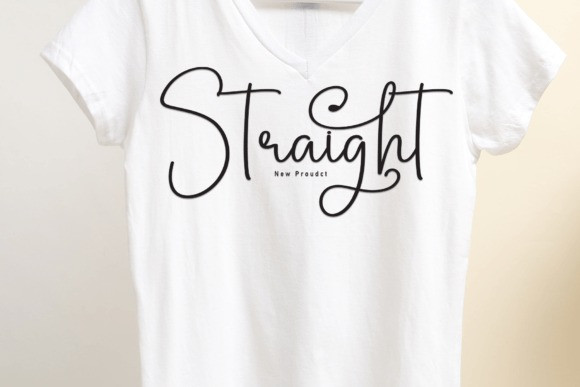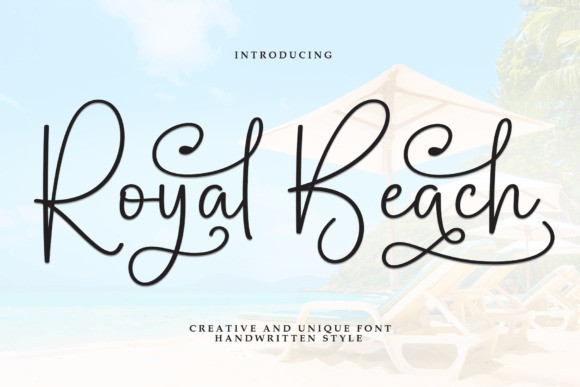
Royal Beach Handwriting Font
Royal Beach Handwriting Font is a lovely and timeless handwritten font. It is the best choice for creating eye catching logos, branding and quotes. Every letter has a unique and beautiful touch, which will make your design come alive!